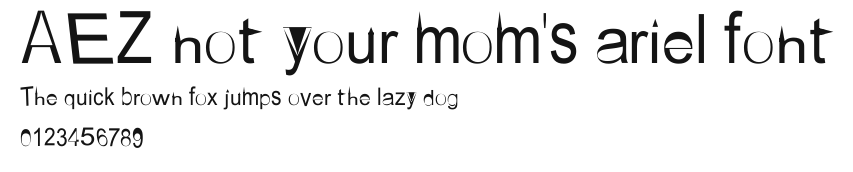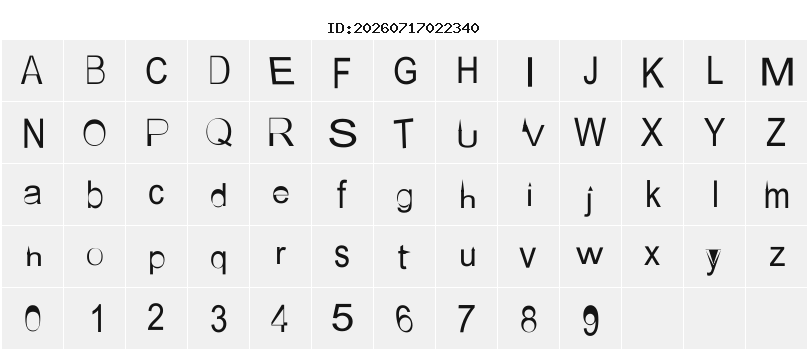
AEZ not your mom's ariel font Preview
• Font Name: AEZ not your mom's ariel font
• Font Style: AEZ not your mom's ariel font
• Font ID: AEZ not your mom's ariel font
• Full Font Name: AEZ not your mom's ariel font
• PostScript Name: AEZ not your mom's ariel font
• Designer: Anastacia E. Zittel
About AEZ not your mom's ariel font.ttf
AEZ not your mom's ariel font.ttf is a modern, elegant sans-serif font designed for ultimate readability and visual harmony. Perfect for branding, headlines, web design, and print materials.